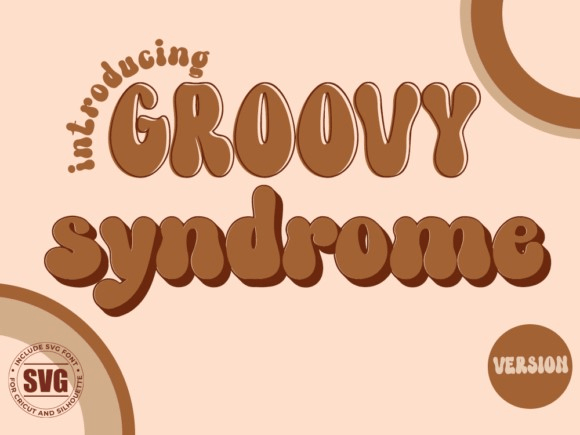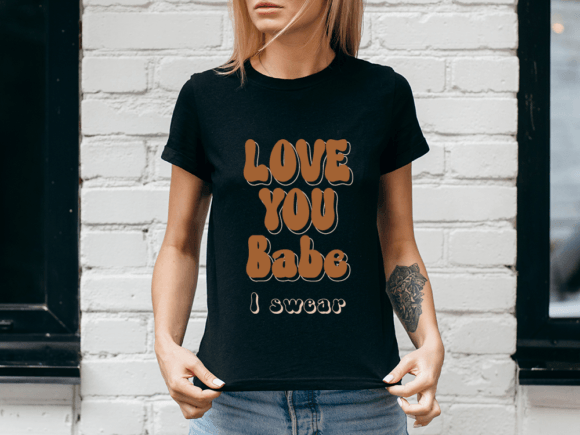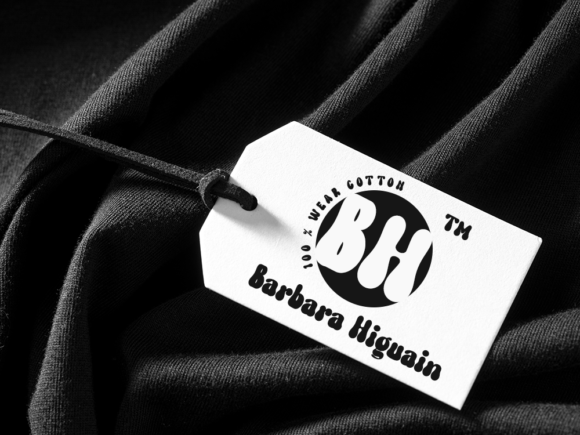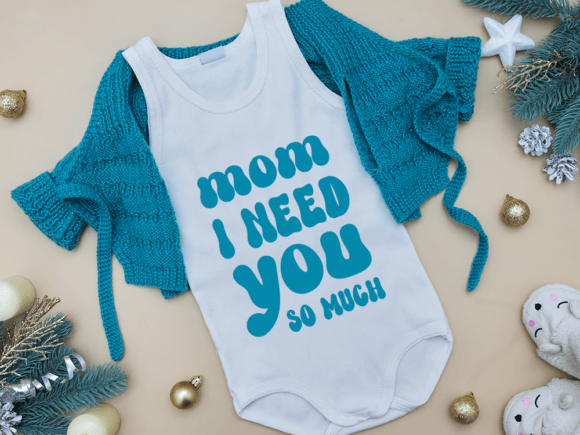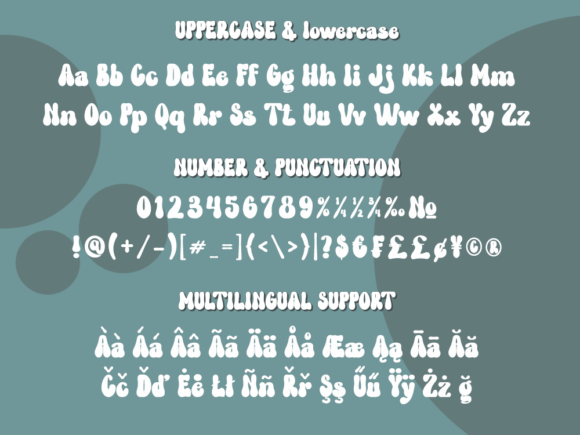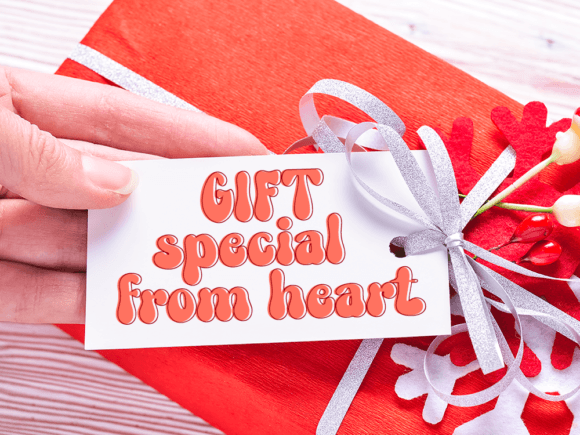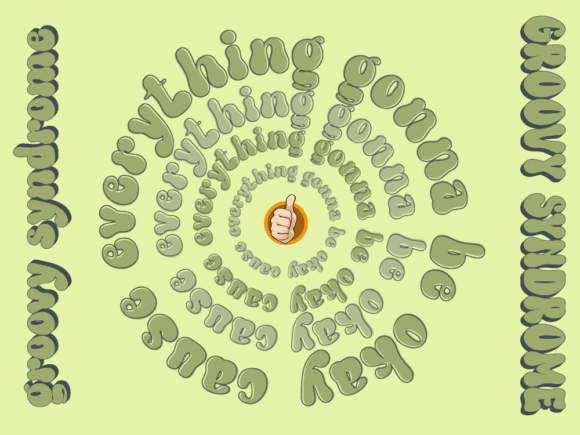
The Groovy Effect: Unlocking the Power of the Groovy Syndrome Font
Enter the Groovy Syndrome Font, a hand-drawn, bubbly display font that’s guaranteed to add a touch of retro magic to your designs. Perfect for creating your own unique quotes and words, this font is a must-have for any designer looking to add a dash of fun and personality to their work.
- Unique Characteristics: The Groovy Syndrome Font features a unique blend of retro and modern elements, with intricate details and subtle textures that set it apart from other fonts in its category.
As a designer, I was excited to dive into the Groovy Syndrome Font, and I have to say it’s a mixed bag. ✨ The font has a unique, retro vibe that’s perfect for projects that need a touch of nostalgia. The creator has done a great job of capturing the essence of the 1960s and 1970s, with its bold lines and playful characters.
One of the standout features of Groovy Syndrome is its versatility. ✨ It comes in a range of weights and styles, making it easy to use in a variety of contexts, from headings to body text. The font also includes a range of special characters and symbols, which can add a fun touch to your designs.
⚠️ While Groovy Syndrome has a lot going for it, there are some limitations to consider. One of the main issues is that the font can be quite dense, which can make it difficult to read at smaller sizes. Additionally, the font may not be the best choice for projects that require a more modern or minimalist aesthetic.
Overall, I think Groovy Syndrome is a great font for the right project. While it may not be the best choice for every design, it’s a fun and unique option that can add a lot of personality to your work. Just be sure to use it judiciously, and consider the potential limitations before making a final decision.
Design Considerations
- Use Groovy Syndrome for projects that require a retro or nostalgic vibe
- Avoid using the font for projects that require a modern or minimalist aesthetic
- Be mindful of font size and density when using Groovy Syndrome
For the best results, use the Groovy Syndrome Font in bold or italic styles to add emphasis to your text.
Combine the font with creative graphics and images to create visually appealing designs.
The Groovy Syndrome Font is ideal for use in:
- Music and art-related projects
- Graphic design and branding
- Marketing materials and social media posts